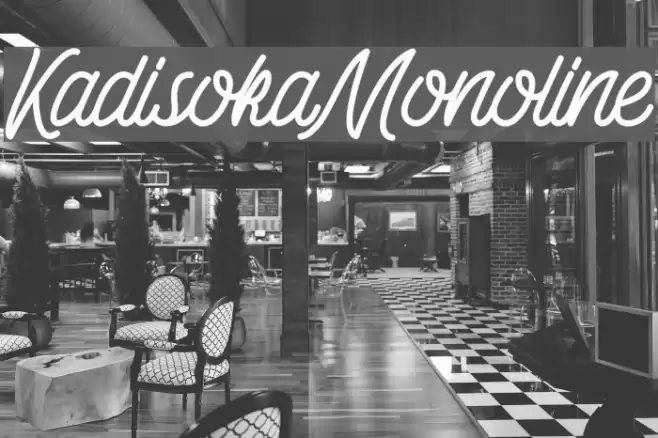
Kadisoka-Monoline Font
Kadisoka-Monoline Description
This font features a smooth, flowing monoline script style that exudes elegance and fluidity. Each character is crafted with a consistent stroke width, creating a harmonious and cohesive appearance. The uppercase letters are bold and prominent, while the lowercase letters maintain a graceful and connected form. The numerals are clear and easily distinguishable, complementing the overall script style. Special characters are seamlessly integrated, maintaining the font's aesthetic. This font is perfect for projects that require a touch of sophistication and style.
A smooth, flowing monoline script font with elegant and consistent strokes from Uncategorized fonts.
- Proposed Projects: Ideal for wedding invitations, branding, logo design, and elegant stationery.
- Overall Style: Elegant
- Use Case: Logos, Invitations, Branding